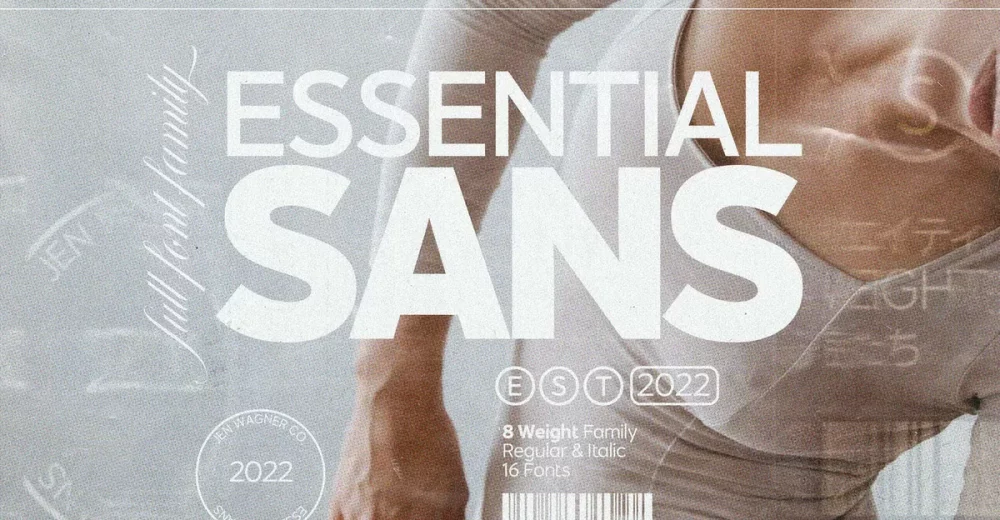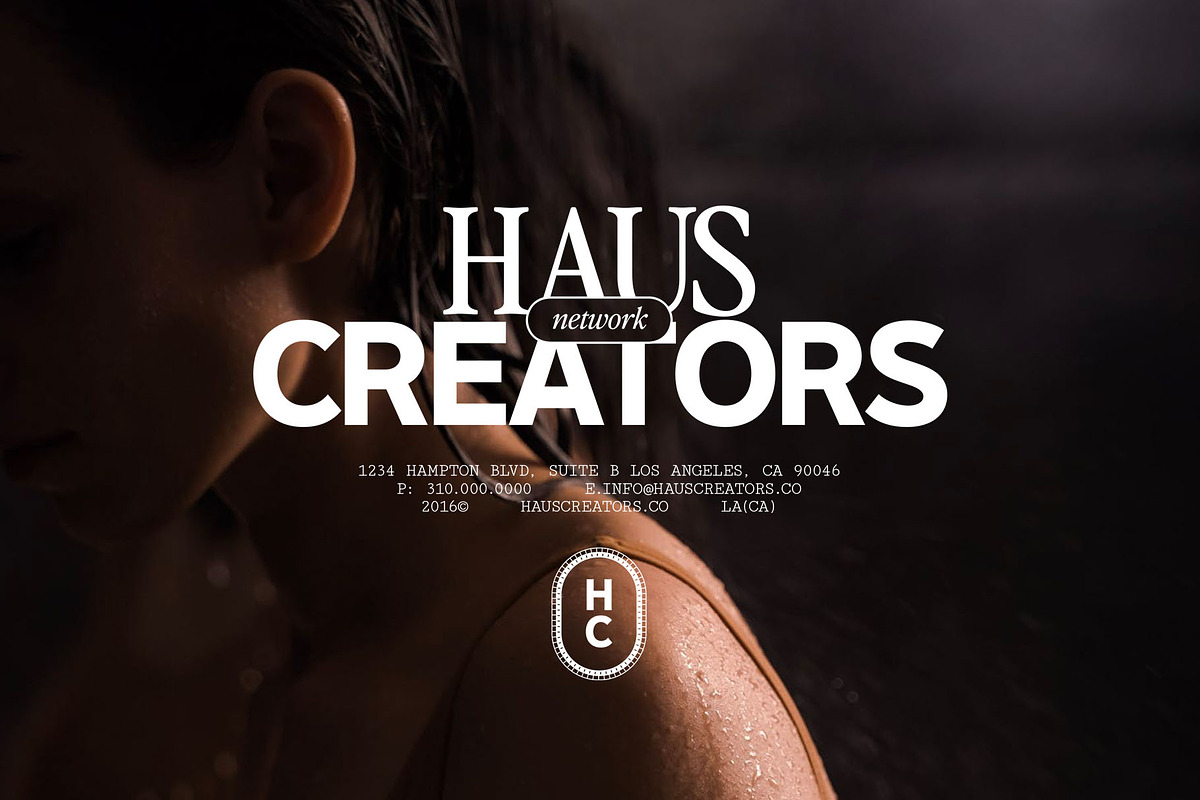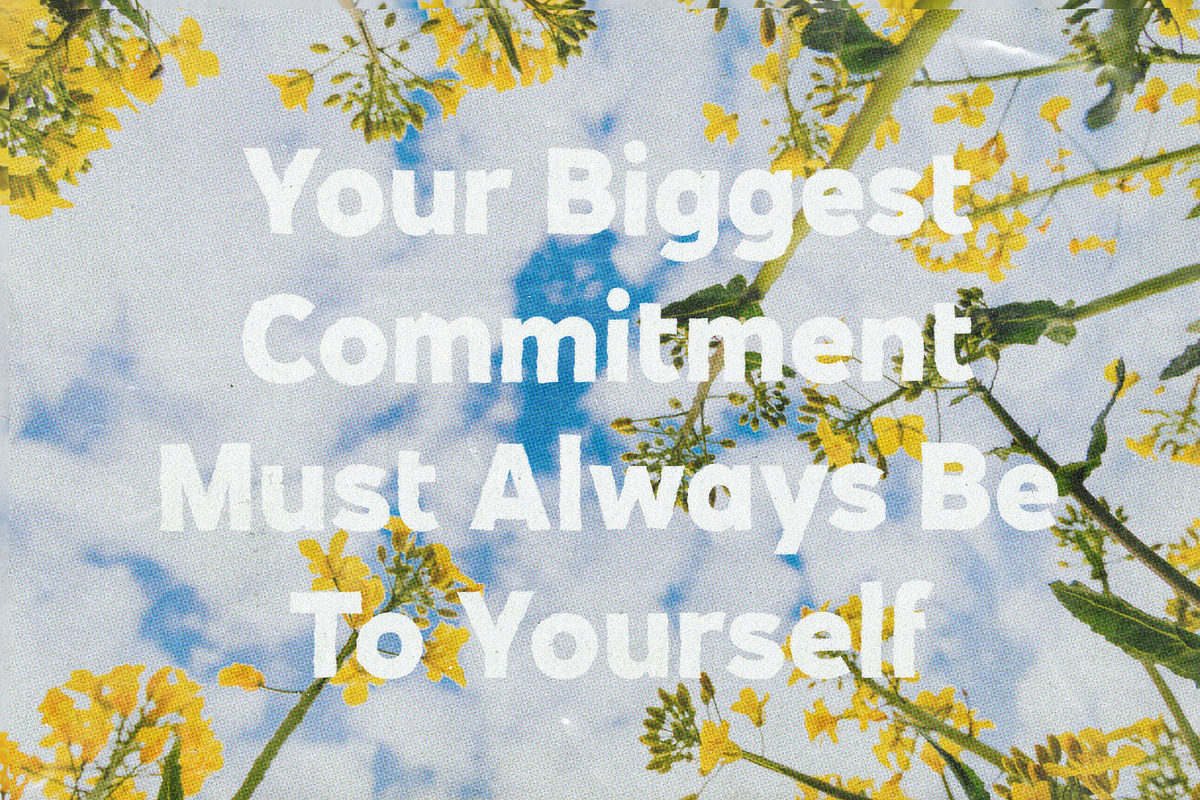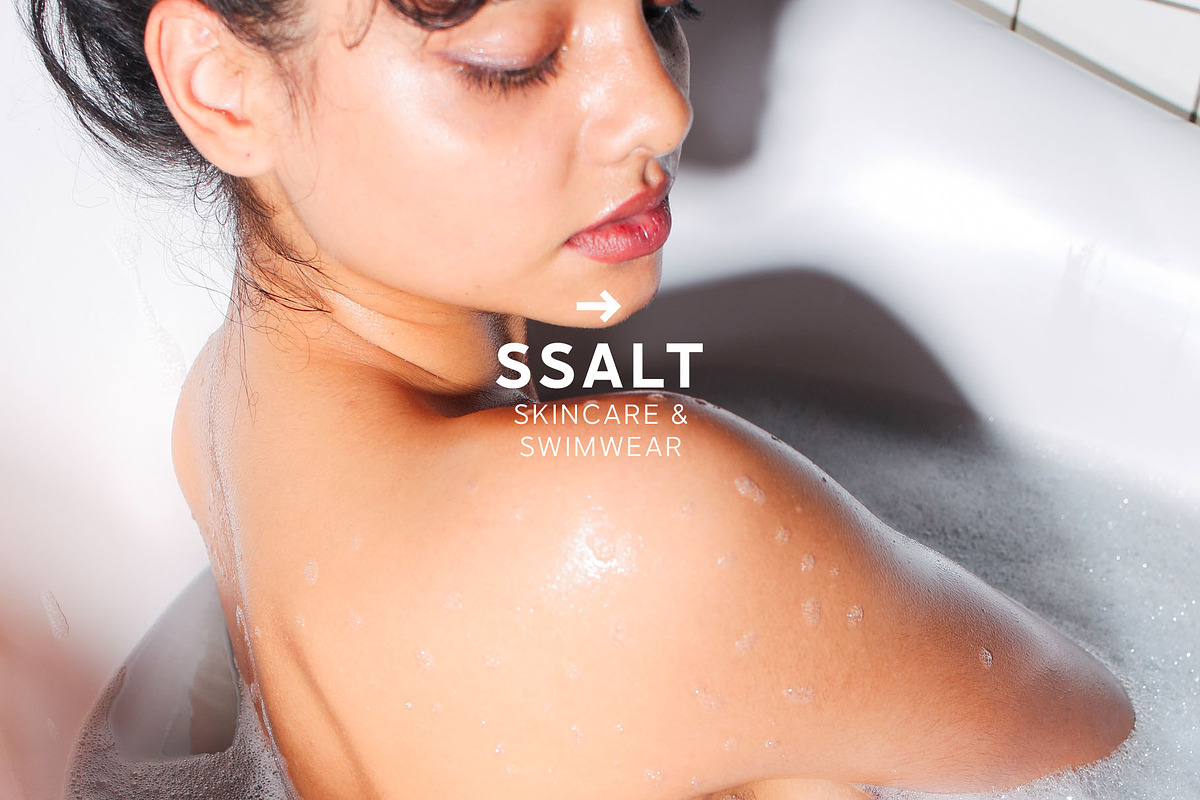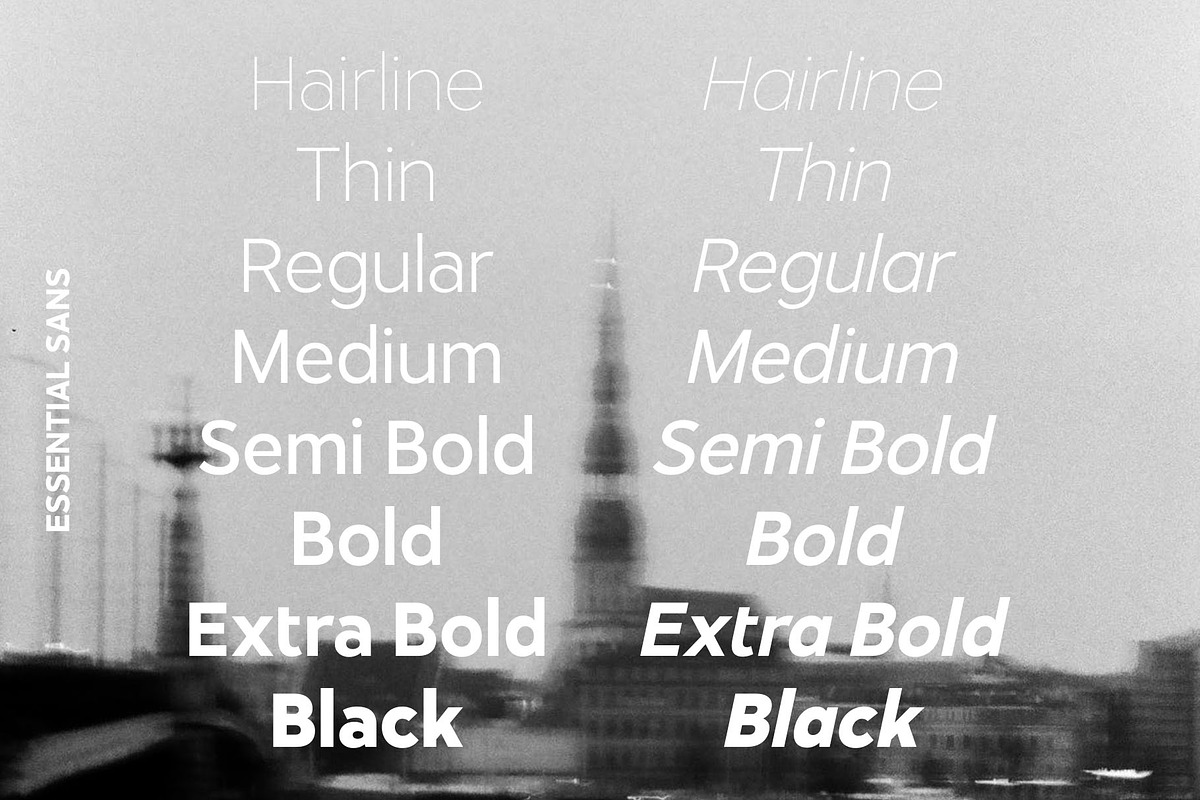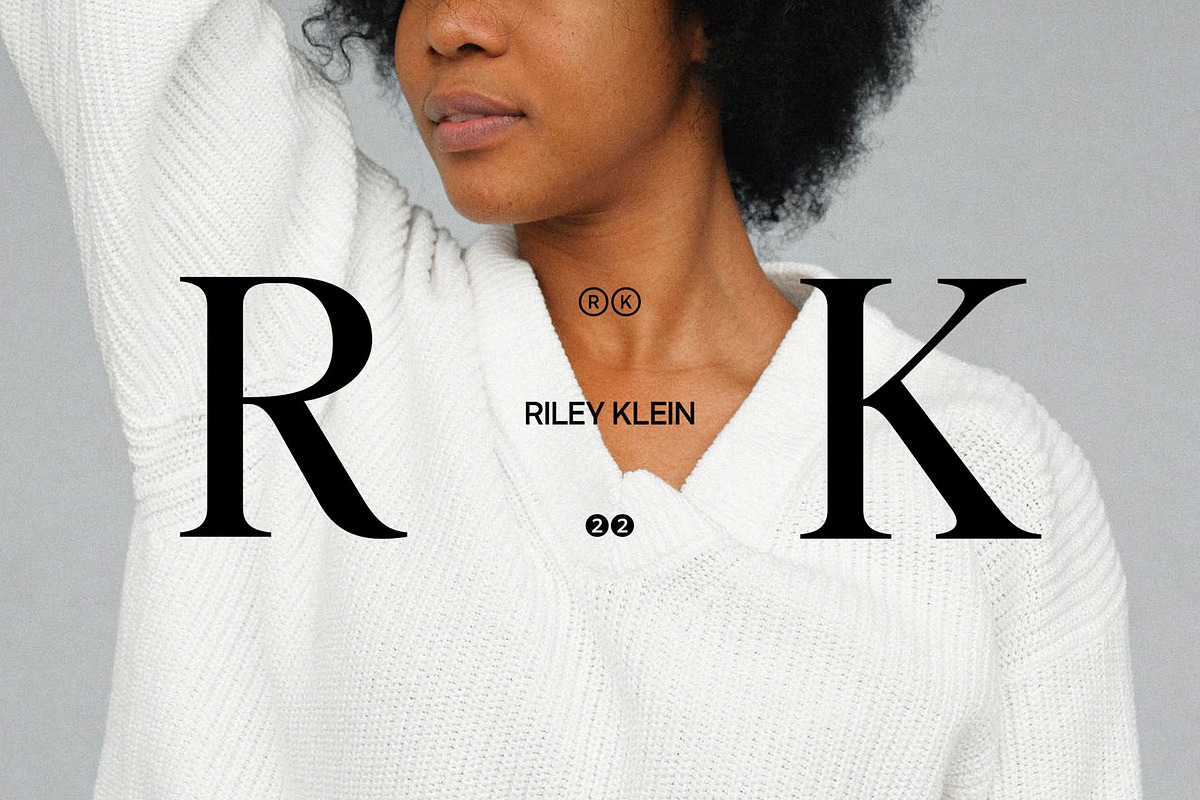
Essential Sans Font
Introducing Essential Sans – my very first full typeface with 8 weights and italics (16 fonts total). It is an eight-weight, 16-font typeface designed to be an easy go-to for branding, web, and print design projects.
Each form is pared down to its essentials, so it’s extremely versatile and can blend in or stand out as much as you choose.
You’ll also get outline circled numbers 0-9 and letters A-Z, as well as solid circle versions of the same for each font (which you can access through the alternates or the Glyphs panel!), plus a set of arrows — all of which can be used to create beautiful, minimalist logos and design elements.
• Essential Sans Regular
• Essential Sans Italic
• Essential Sans Variable
• Outline Circled numbers and letters, A-Z, 0-9
• Solid Circled numbers and letters, A-Z, 0-9
• Numbers & punctuation
• Arrows
• Foreign language support